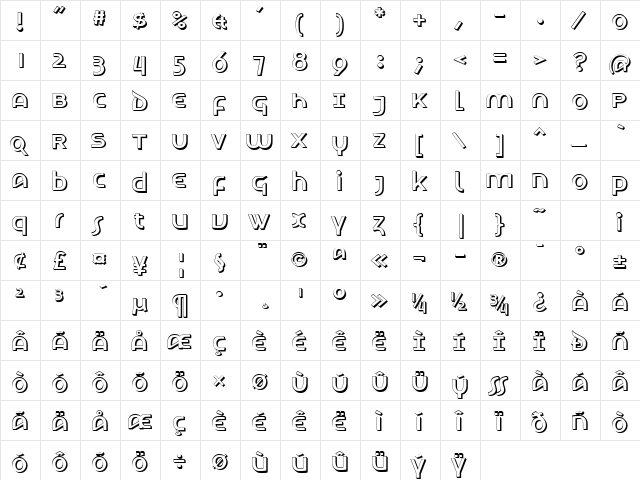
LetunicalShadow Regular Font Preview
LetunicalShadow Regular
Design Context for LetunicalShadow Typeface
LetunicalShadow is built around its visual character rather than neutral utility — its distinctive forms are designed to make an impression at display sizes.
Font Pairing: Pair with a clean neutral sans-serif for body copy to let LetunicalShadow's character lead without overwhelming the composition.
Pro Tip: Treat LetunicalShadow as the centrepiece of your typographic hierarchy. One strong heading set in a decorative face can carry an entire layout.